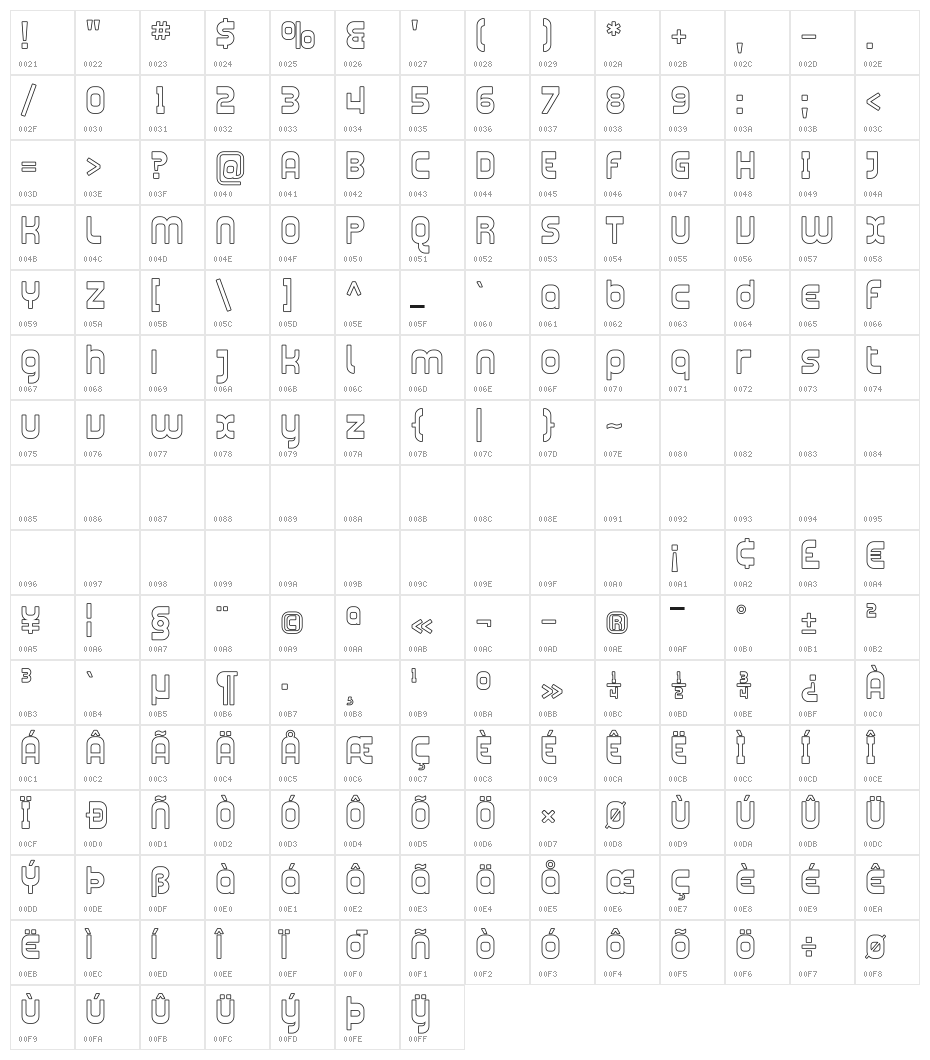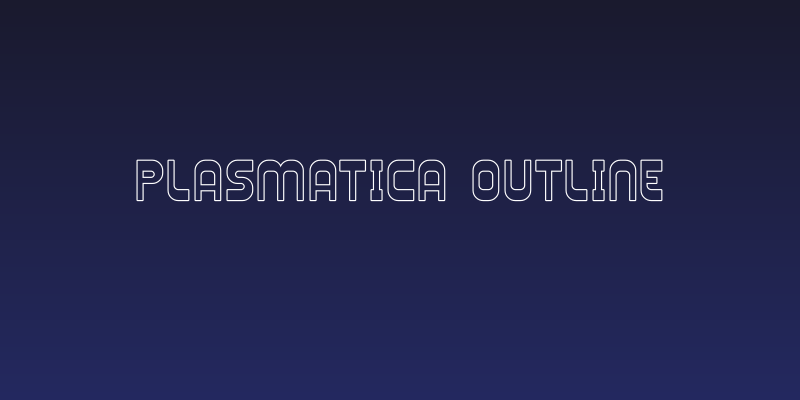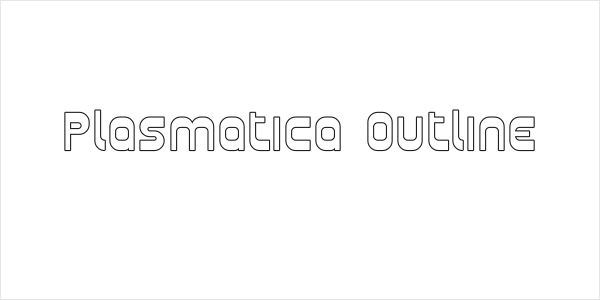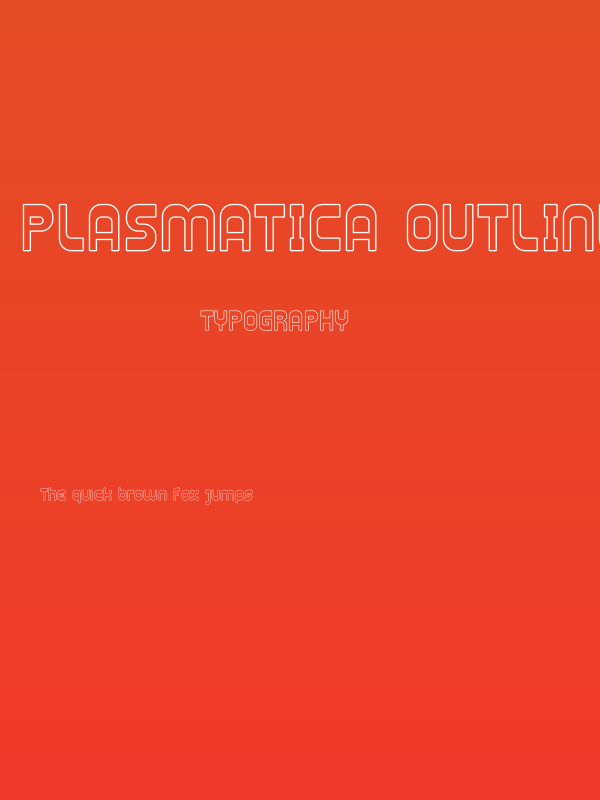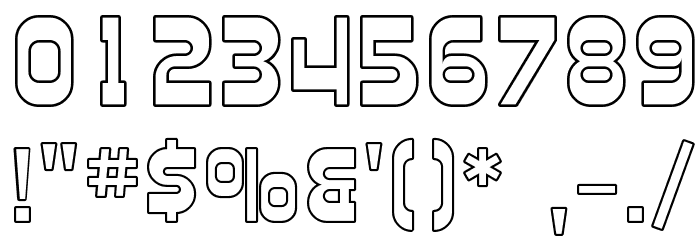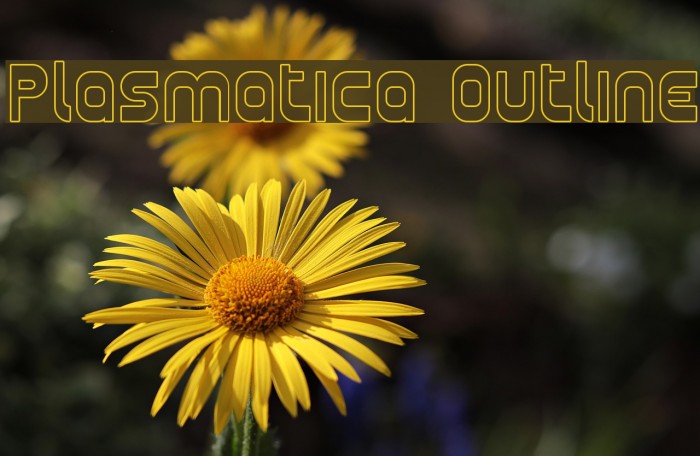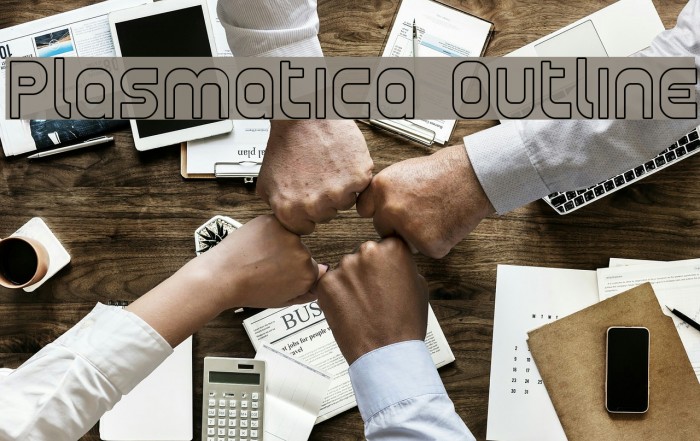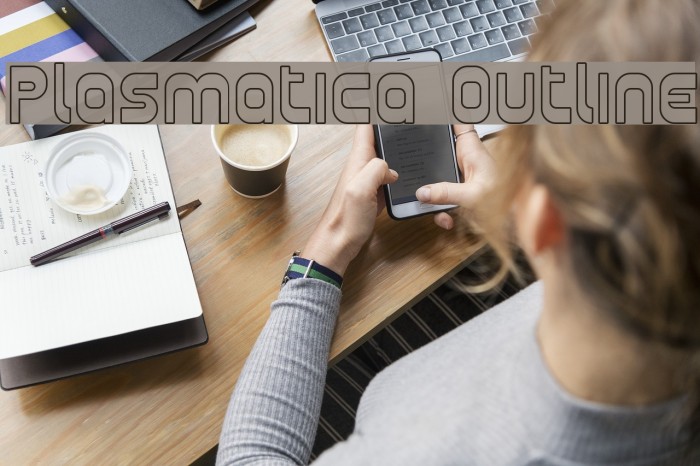
Plasmatica Outline Font
Plasmatica Outline Description
This font features a modern, geometric outline style with clean lines and rounded edges. The uppercase and lowercase letters maintain a consistent height, giving it a uniform appearance. The numerals are distinct and easy to read, while the special characters are designed to match the overall aesthetic. The font's outline design makes it suitable for creating eye-catching headlines and logos, where a bold and futuristic look is desired. Its simplicity and clarity make it versatile for various design projects.
| Proposed Projects | Ideal for futuristic branding, tech-related designs, posters, and digital media. |